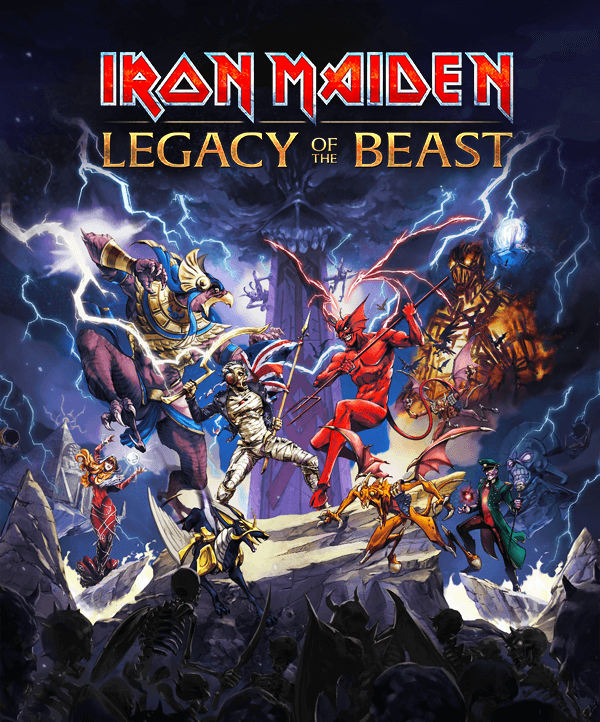
Legacy of the Beast Font
Fonts in UseIron Maiden: Legacy of the Beast is a mobile game inspired by the legendary British heavy metal band Iron Maiden. Players take on the role of Eddie, the band's iconic mascot, and embark on a journey through time and space to battle various enemies and collect powerful items.
You can download the fan-made font Legacy of the Beast for free here which bears a resemblance to the title lettering of the Iron Maiden: Legacy of the Beast game. Additionally, the font used for the Iron Maiden logo can also be obtained for free here at FontGet.